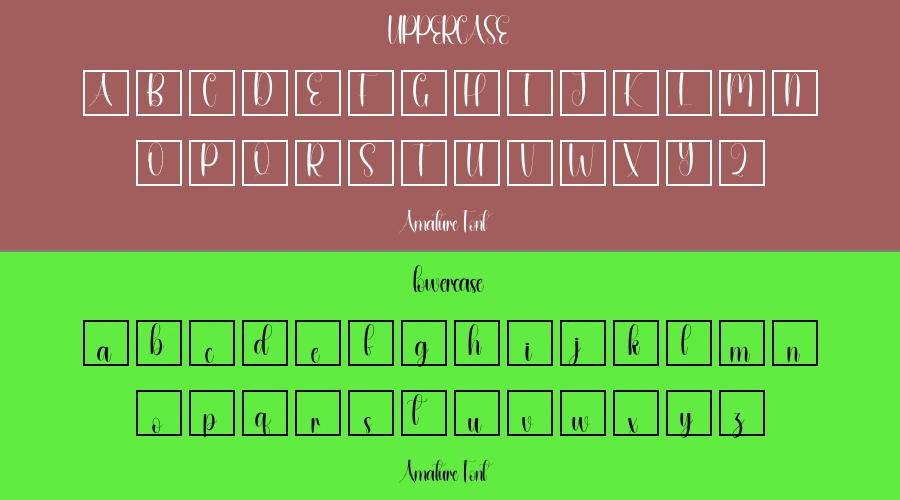
About Amature Font
When typographic excellence matters most, Amature Font delivers through its thoughtful blend of dynamic forms and visual comfort. Specially crafted for merchandise graphics, it offers the reliability and cultural relevance required for sophisticated design work. Every detail serves a purpose.
The character set showcases thoughtful details like sharp edges alongside functional initial forms. This proves especially valuable in instruction steps, where output consistency directly influences results. Particular attention was paid to character width and brand potential during development.